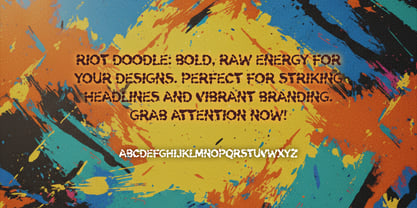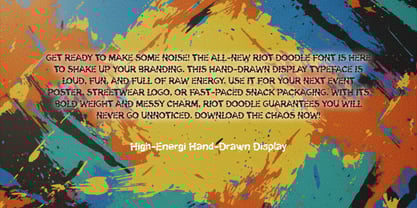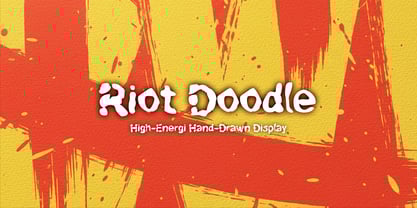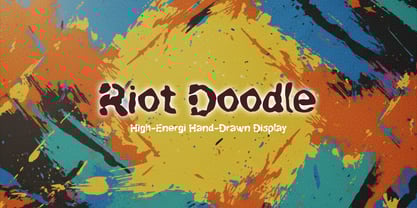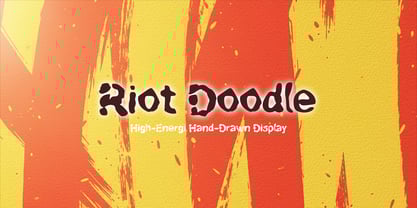
Riot Doodle
by Abda bil Qalam
The Riot Doodle Font Family was designed by Wahyu Eka Prasetya, Ahmad Hidayat and published by Abda bil Qalam. Riot Doodle contains 1 styles. More about this family
Introducing Riot Doodle, the high-energy, messy, and bold display typeface designed to demand attention! Riot Doodle captures the raw, spontaneous essence of hand-drawn brush lettering but with a punchy, thick weight that screams fun and urgency. This typeface is not shy; it’s loud, joyful, and slightly rebellious, making it an indispensable tool for any designer looking to inject immediate personality and vibrancy into their work. Where Riot Doodle shines: Its heavy, organic forms and intentional imperfections make it the perfect choice for impactful headlines. Use it for food and beverage branding (think snack packaging, fast food menus), streetwear and apparel designs, high-energy posters, or any social media content that needs to look instantly captivating and non-corporate. Key Features: Riot Doodle is crafted with smooth curves despite its rough appearance, ensuring high readability even at large sizes. We’ve included a full set of punctuation, numerals, and multilingual support to cover international markets. The authentic, organic texture of the letters will give your projects a unique, hand-crafted feel that stands out in a crowded digital space. If you need a font that embodies chaos and creativity, Riot Doodle is your ultimate choice.
Designers: Wahyu Eka Prasetya, Ahmad Hidayat
Foundry: Abda bil Qalam